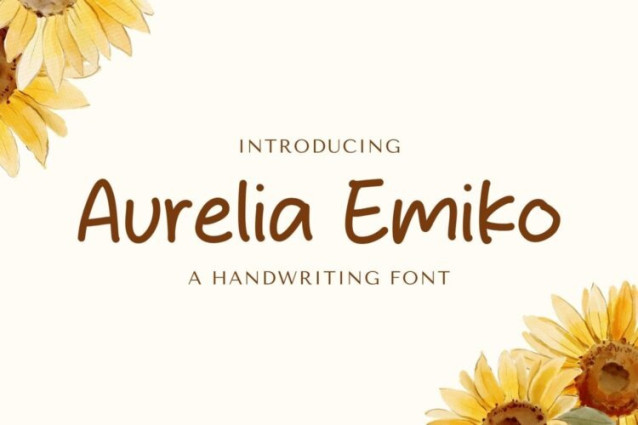
Aurelia Emiko Font
Aurelia Emiko Font is a simple and friendly handwritten font. Its natural and unique style makes it incredibly fitting to a large pool of designs. The only limit is your imagination!